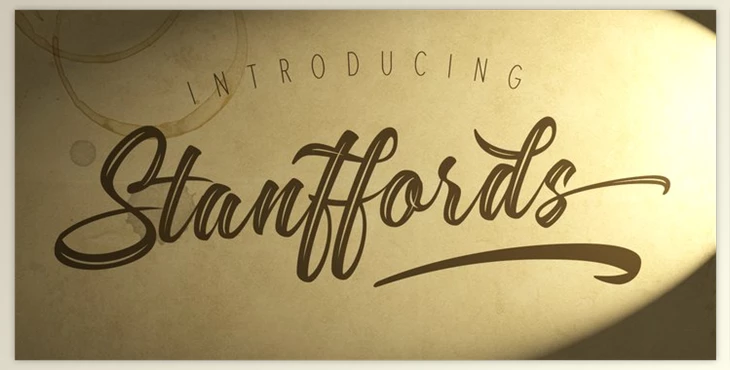
Stanffords Font Family – 5 Fonts, comprising 5 unique fonts, embodies the essence of classic brush writing with a contemporary twist.
Its round, bouncy base exudes a relaxing, welcoming, and hand-crafted feel.
Ideal for both print and web design, this family offers optimized kerning and exceptional accessibility.
Stanffords includes Stanffords, Stanffords Bright, Stanffords Sans, and Stanffords Ornaments, along with 86 unique ornaments for creative versatility.
With a diverse range of characters, ligatures, and customizable features, Stanffords is perfect for various design applications including packaging, logos, labels, food articles, t-shirts, wedding stationery, and beyond, offering limitless creative possibilities.